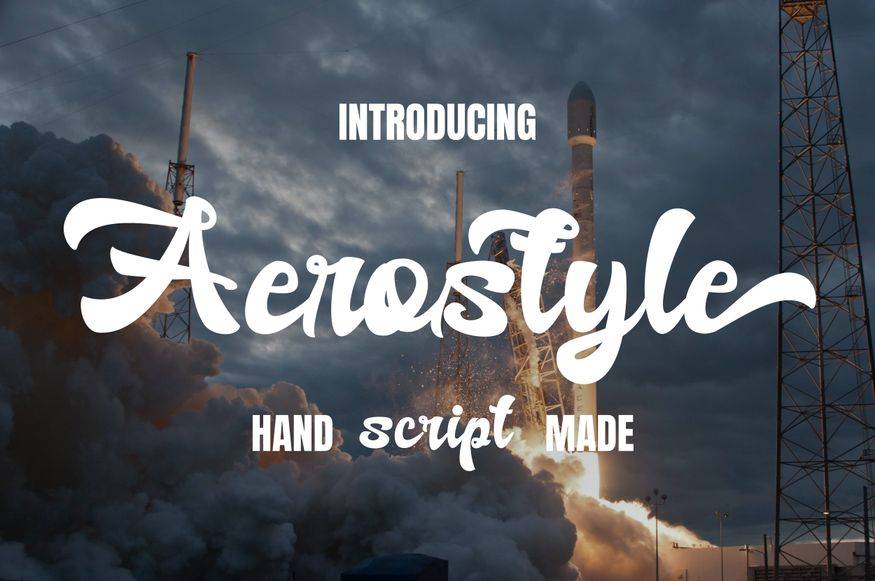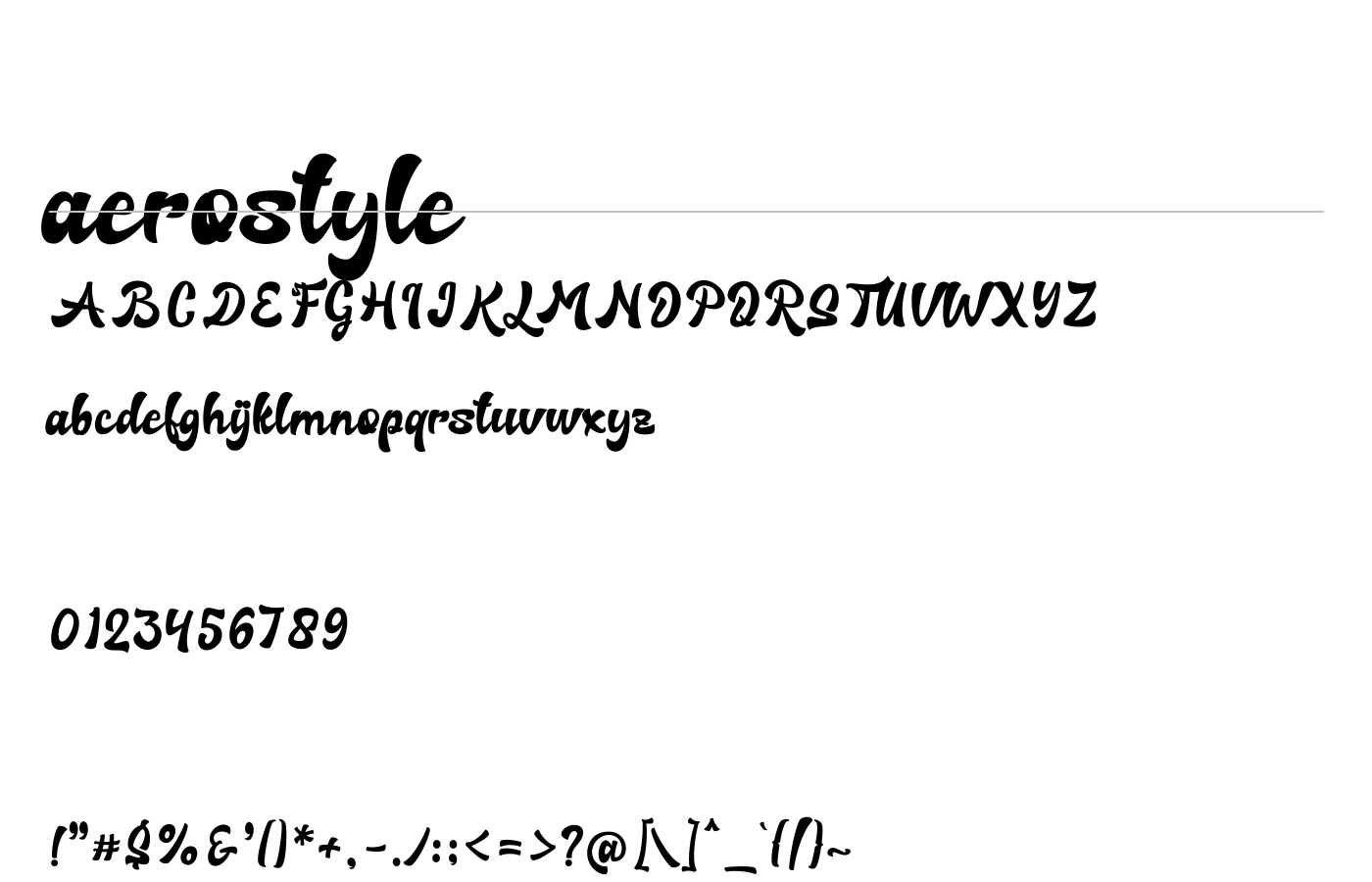
Aerostyle is a bold, script-style font with a playful and dynamic personality, featuring smooth, rounded strokes and lively letterforms that evoke a retro, hand-painted feel. Its strong presence and informal charm make it ideal for eye-catching logos, packaging, and headlines where a friendly yet spirited look is desired. This font works well in creative and casual contexts, adding warmth and character without sacrificing readability.
Aerostyle Font
About Aerostyle Font
| Font family | Aerostyle Font |
| Designer | letter art studio |